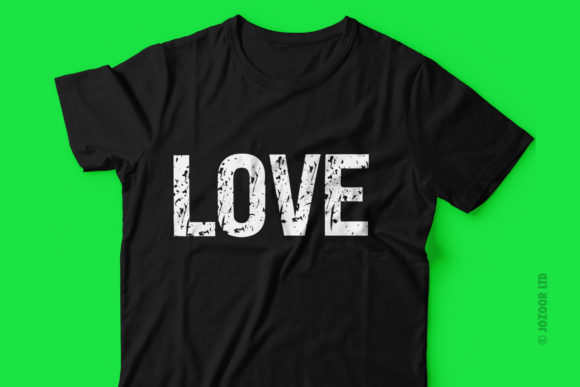
Distress College Grunge Font
Distress is a unique college grunge decorative font perfect to be used in your new creative projects such as crafting, t-shirt designs, posters, digital designs, presentations, book covers, and much more. Add it to your most creative ideas, and notice how it makes them come alive!